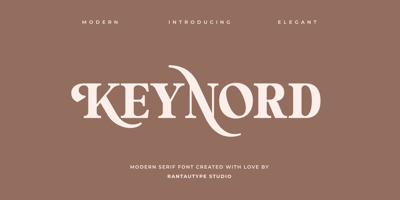
Keynord Font Family was designed by Yudi Pratama Chandra and published by RantauType. Keynord contains 2 styles and family package options. Keynord is a modern serif font with beautiful feature. Keynord is a perfect choice for any creative endeavor, chic, lifestyle design such as logos, advertisements, watermark on photography, stationery, branding project, display and magazine, invitation, corporate brand, product design, label, business project and many other project need elegant taste.Features: Standar character A-Z and a-z Numberial and Functional Alternate and ligature Multilinggual support Works on PC & Mac Simple installations Accessible in Adobe Illustrator, Adobe Photoshop, Adobe InDesign, even work on Microsoft Word. Fonts include Multilingual Support for: Afrikaans, Albanian, Asu, Basque, Bemba, Bena, Breton, Chiga, Cornish, Dutch, English, Estonian, Filipino, Finnish, Friulian, Galician, Gusii, Indonesian, Irish, Italian, Kabuverdianu, Kalenjin, Kinyarwanda, Luo, Luxembourgish, Luyia, Machame, Makhuwa-Meetto, Makonde, Malagasy, Manx, Morisyen, North, Ndebele, Nyankole, Oromo, Portuguese, Quechua, Romansh, Rombo, Rundi, Rwa, Samburu, Sango, Sangu, Scottish, Gaelic, Sena, Shambala, Shona, Soga, Somali, Spanish, Swahili, Swedish, Swiss, German.Thank you for your purchase!Hope you enjoy with our font!